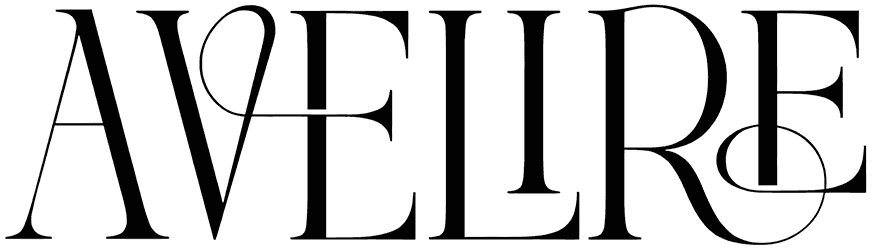
Avelire Font
Reflecting elegance and superiority all over, Avelire doesn’t let you consider another font for your next logo design project. Whether it’s for a brand of jewelry, a fashion company, packaging your accessories, etc., you have to try this gorgeous typography font ASAP.
The best visual touch is achieved right away once you add Avelire to your artwork and let it take things to the next level. That’s one of the many perks of using a ligature font after all.